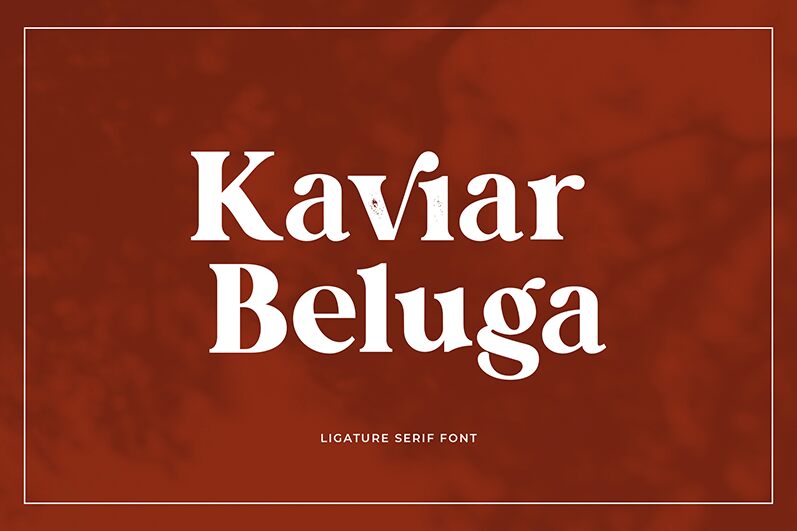
KaviarBeluga
Kaviar Beluga, crafted by UI Creative, is a bold serif font that exudes sophistication and elegance.
Its striking weight commands attention, making it an ideal choice for headlines and titles that require a touch of class. The refined serifs add a timeless charm, perfect for luxury branding, editorial designs, and high-end product packaging. With its robust yet elegant presence, Kaviar Beluga stands out in any design context where boldness and refinement are paramount.